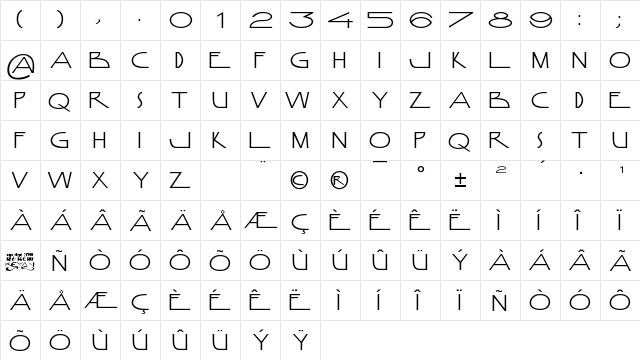
Anamorphos Regular
| Designer | Com N'B, retranscrit et modifi頰ar Keyan |
Design Context for Anamorphos Typeface
Anamorphos is a composed and adaptable typeface that performs quietly and consistently across a wide range of design contexts.